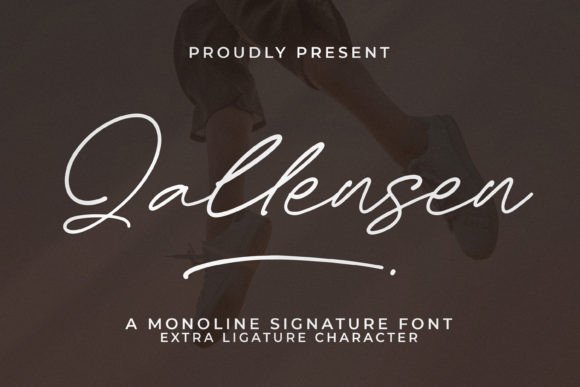
Behold the exquisite Qallensen Font, a calligraphic masterpiece that dances across the digital canvas with its monoline charm. Immerse yourself in the elegance of this script font, a creation of integritypestudio, and let your imagination soar.
Qallensen is the ultimate choice for those seeking a font that exudes sophistication and timeless beauty. Its carefully crafted curves and delicate strokes lend an air of refinement to any project, whether it's a heartfelt letter, an elegant logo, or an eye-catching poster. With Qallensen, your words will sing, your designs will captivate, and your projects will radiate a touch of luxury.
Step into the world of Qallensen and discover a symphony of possibilities. This monoline script font is meticulously designed to bring a touch of class to your branding projects, homeware designs, product packaging, and more. The Qallensen Font is your gateway to creating visual experiences that resonate with your audience, leaving a lasting impression that speaks volumes about your brand.
Qallensen's versatility knows no bounds. Watch as your mugs, quotes, posters, and shopping bags come alive with its graceful presence. Envision your T-shirts, book covers, business cards, and invitation cards adorned with Qallensen's enchanting characters, adding a touch of elegance that sets them apart from the ordinary.
The Qallensen Font is not just a collection of letters; it's an arsenal of creative possibilities. Its PUA encoding grants you effortless access to a treasure trove of glyphs and swashes, empowering you to infuse your projects with intricate details and captivating flourishes. Unleash your creativity and let Qallensen guide you toward design brilliance.
Whether you're a seasoned designer or just starting your creative journey, Qallensen is your trusted companion. Its user-friendly nature makes it accessible to all, allowing you to effortlessly transform your ideas into tangible masterpieces. Experience the joy of seamless design as Qallensen seamlessly integrates into your workflow, enhancing your productivity and amplifying your creative potential.
With Qallensen, you're not just downloading a font; you're embracing an artistic legacy. Its impeccable craftsmanship and timeless appeal will elevate your projects to new heights, leaving an indelible mark on the hearts of your audience. Let Qallensen be your muse, your creative spark, and your gateway to design excellence. Allow its beauty to permeate your work and witness the transformation as your projects blossom into breathtaking works of art.